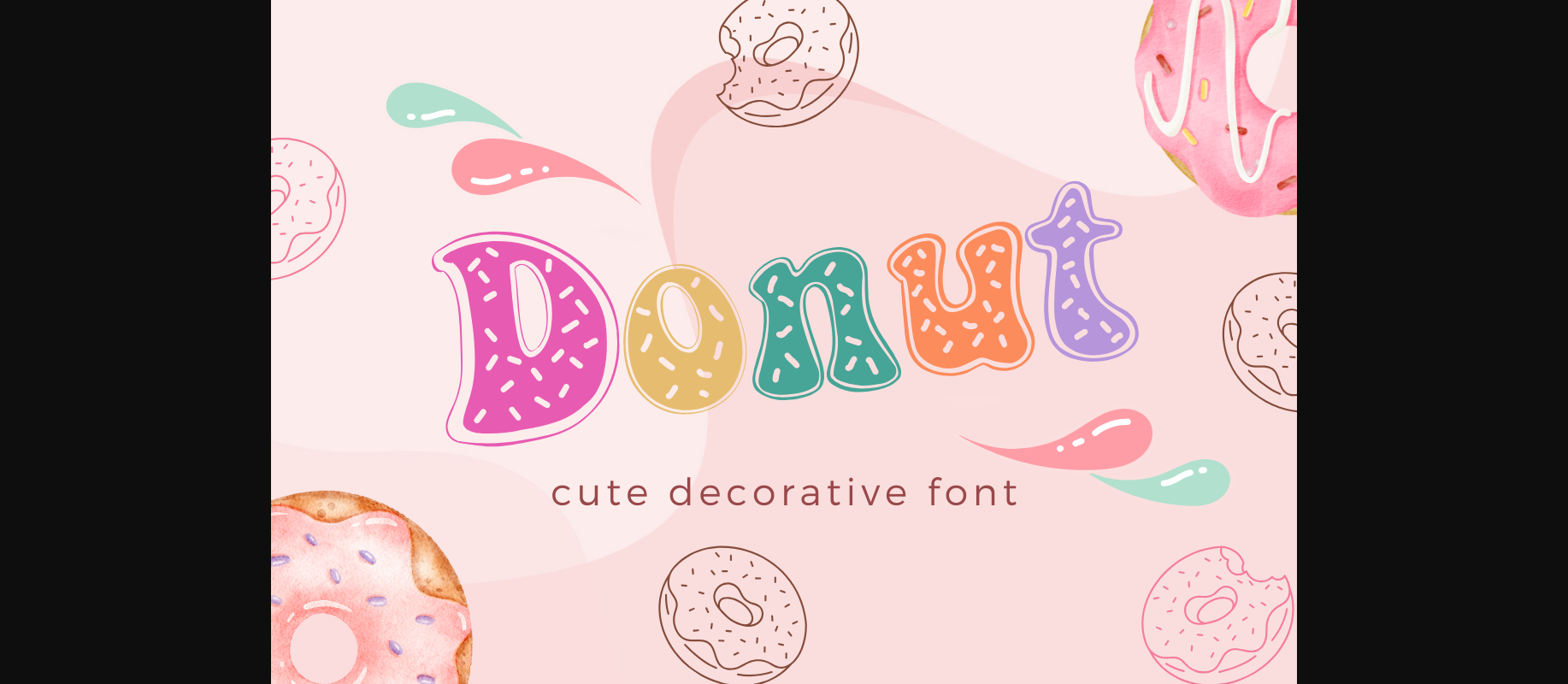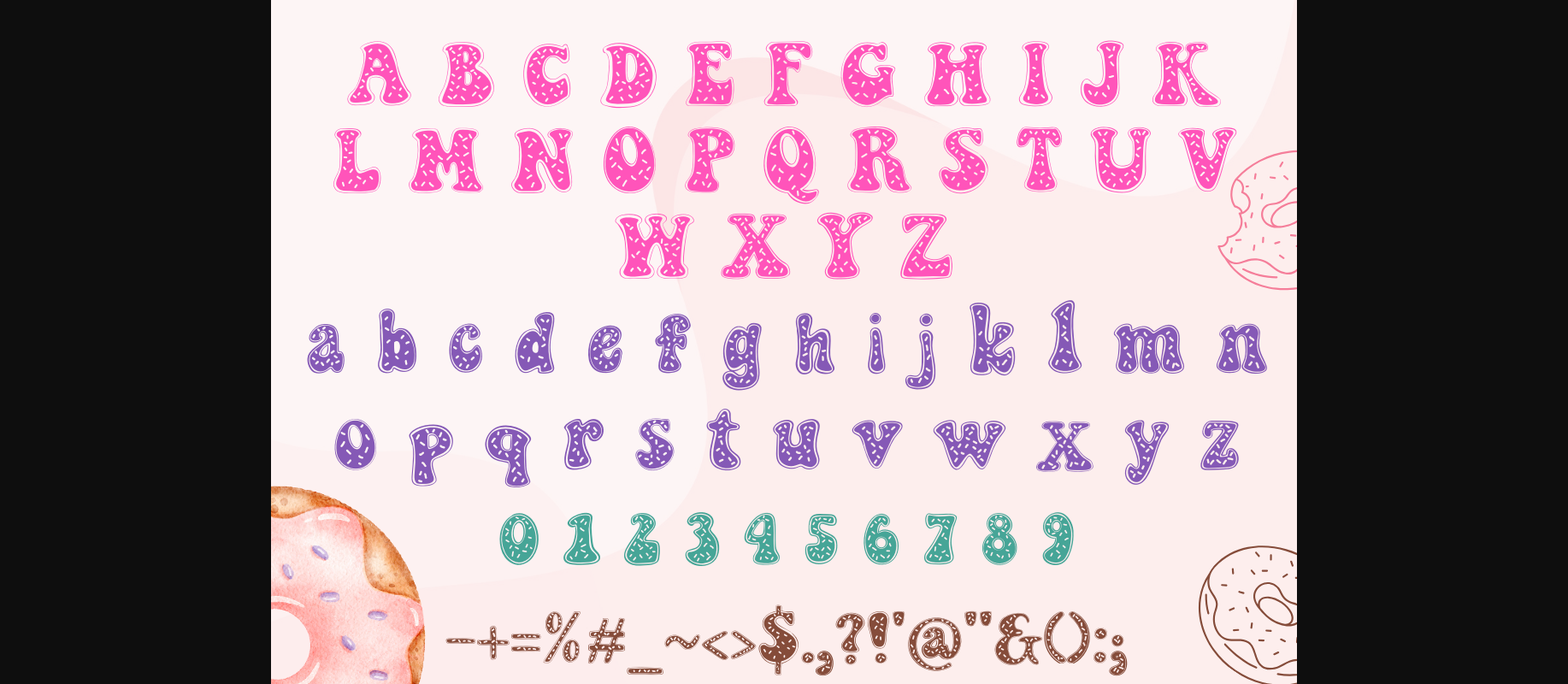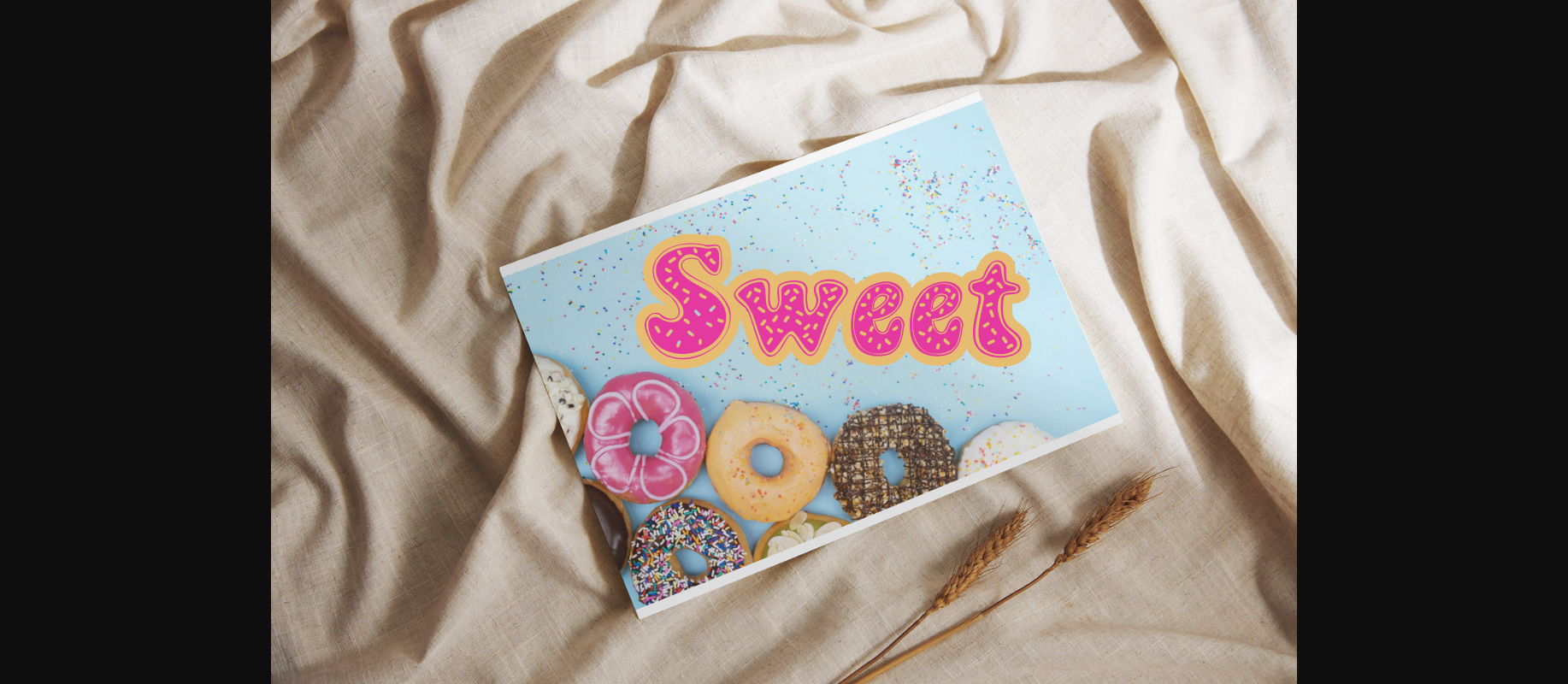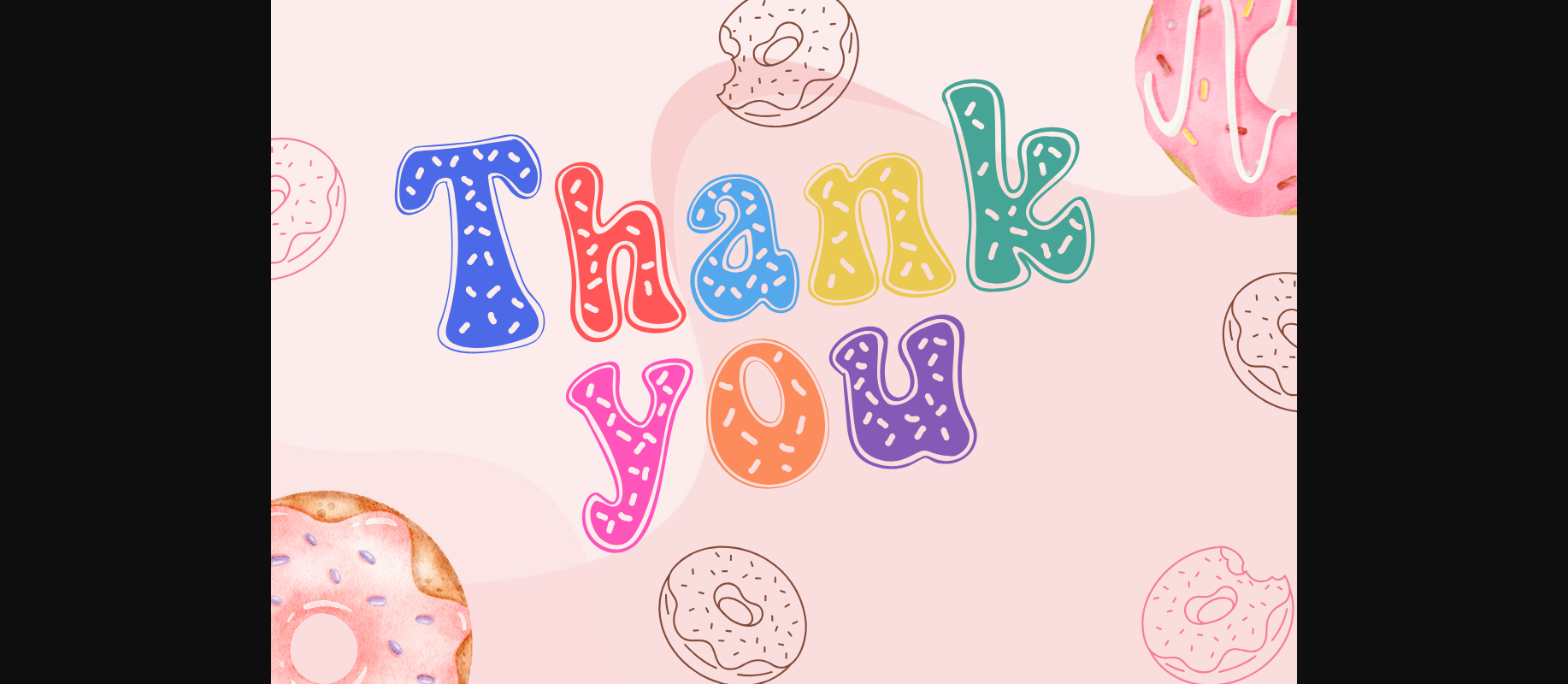
Donut Font
About Donut Font
Donut is a super cute decorative font. This font is a combination of a handwritten font and a sweet donut face. This gives it a unique and interesting look. Ideal for creating a variety of designs to match products such as banners, mugs, cards, shirts, stationery, social media posts and more.